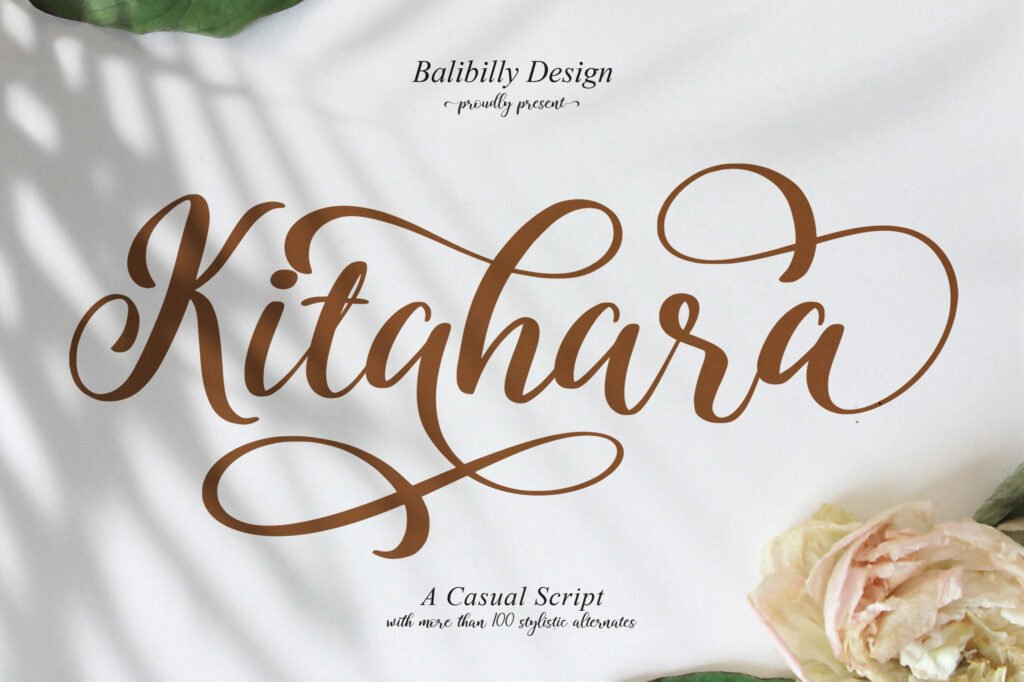
Kitahara Script Font
Introducing the new handwritten script font called Kitahara Calligraphy Font. With unique fast hand sweep style for your daily and project needs. It’s designed and shared by Balibilly Design. A Casual Script Calligraphy A charming, unique, strikingly versatile font. Inspired by the beauty of Japanese culture.
Kitahara is suitable for use in many design forms and is guaranteed to make your text stand out. It can be used in magazines, postcards, logos, websites, DIY Projects, invitation cards, Instagram stories, quotes, wing projects, and much more.